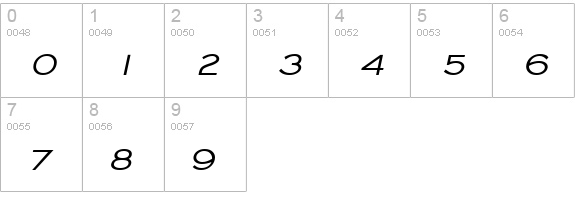
Chisel Italic is a distinctive, italic variant in the Chisel typeface family \xE2\x80\x94 well suited to design and typography projects.
Chisel Italic font is a sleek and modern typeface that exudes sophistication and style. Its unique chiseled design gives it a cutting-edge look, perfect for adding a touch of elegance to any project. The italicized version of the font adds a dynamic flair, making it ideal for creating eye-catching headlines or emphasizing important text. What's even better is that Chisel Italic font is available for free download at FontsMarket.com. You can easily elevate your designs with this stunning font without breaking the bank. Whether you're working on a poster, logo, or website, Chisel Italic font will help you stand out from the crowd with its distinctive and refined aesthetic. Download it today and let your creativity shine!